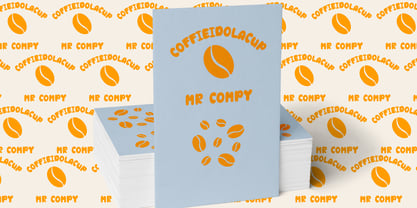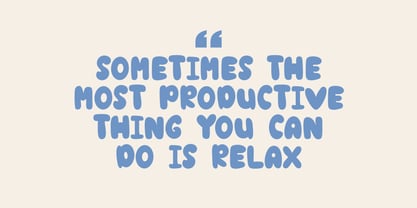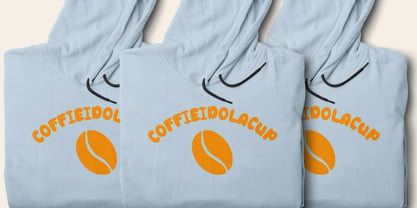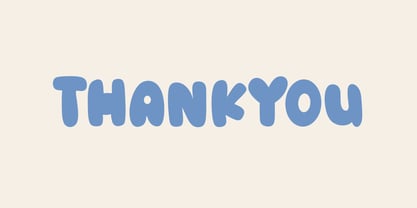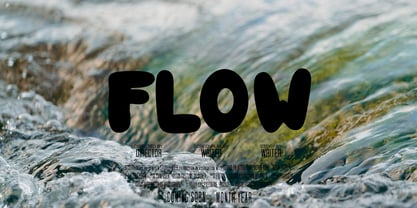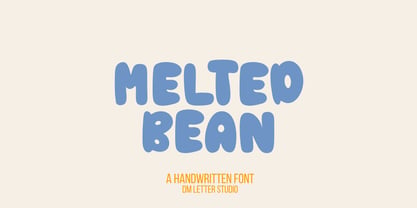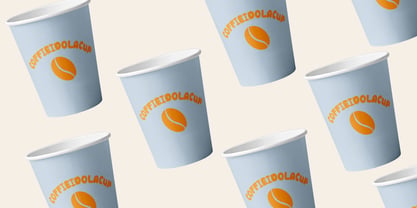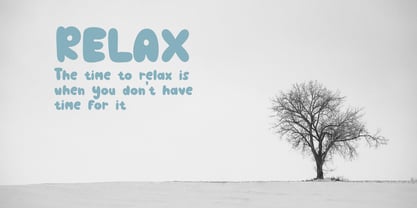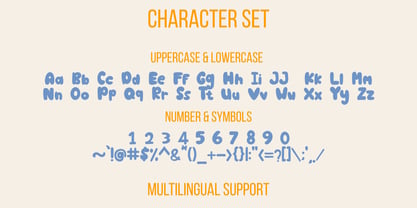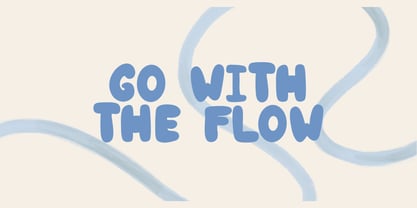
Melted Bean
by DM Studio
The Melted Bean Font Family was designed by Dimas Prasetyo and published by DM Studio. Melted Bean contains 1 styles. More about this family
Melted Bean – Playful Liquid-Inspired Display Font Melted Bean is a quirky and playful display font that feels like it’s straight out of a cartoon universe. With soft, rounded edges and a wobbly liquid-like texture, this font adds a splash of fun to any design. Whether you're working on kid-themed products, eye-catching packaging, comic graphics, or playful quote posts, Melted Bean brings an animated and friendly energy to your project. The font mimics the look of melting chocolate or gooey candy, making it ideal for food branding, dessert shop logos, snack labels, and sweet-themed social content. Its bold yet approachable structure allows you to use it at large sizes for maximum impact—perfect for headlines, posters, t-shirt designs, party decor, or even YouTube thumbnails for gaming and kid-friendly content. Melted Bean is designed for creatives who love fonts that don’t take themselves too seriously. It embraces imperfection and exaggeration while maintaining clean readability. Every curve and drip gives the illusion of movement, like letters slowly melting under the sun—making it perfect for summer campaigns, playful branding, and fun event invitations. You’ll get a full set of uppercase and lowercase characters, numerals, punctuation, and multilingual support. It's fully compatible with Mac and Windows and works smoothly in design platforms like Adobe Illustrator, Photoshop, Canva, Procreate, Cricut, and Silhouette Studio. Features: Liquid-Inspired Design: Wavy, melty shapes perfect for playful themes. Great for Food & Fun Branding: Ideal for snacks, kids’ products, quotes, and packaging. Full Character Set: Includes uppercase, lowercase, numbers, punctuation, and multilingual accents. Easy to Use: Installs on both Mac and Windows, ready for Cricut, Canva, and Procreate.
Designers: Dimas Prasetyo
Foundry: DM Studio